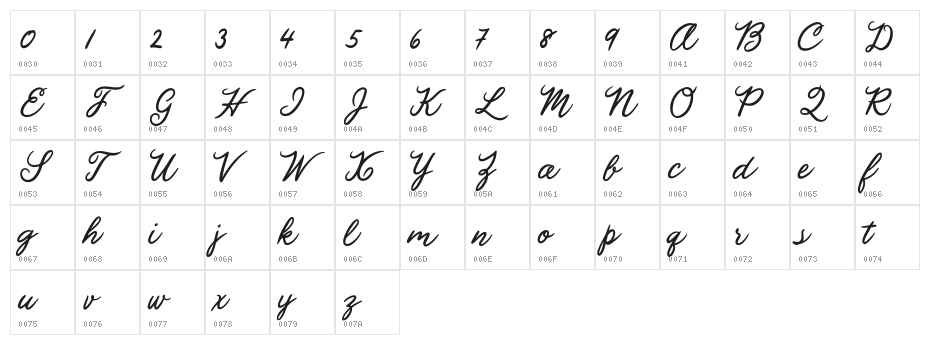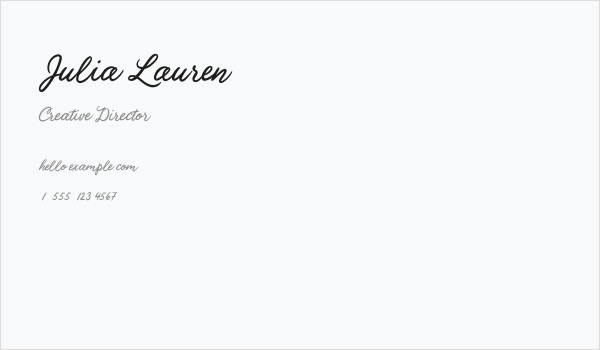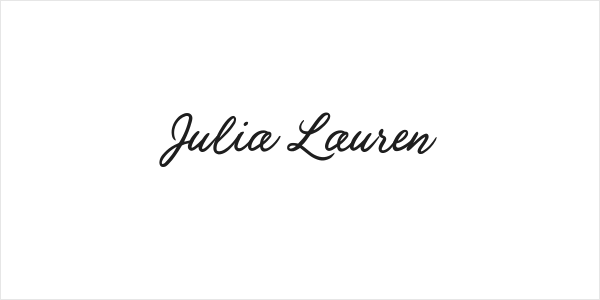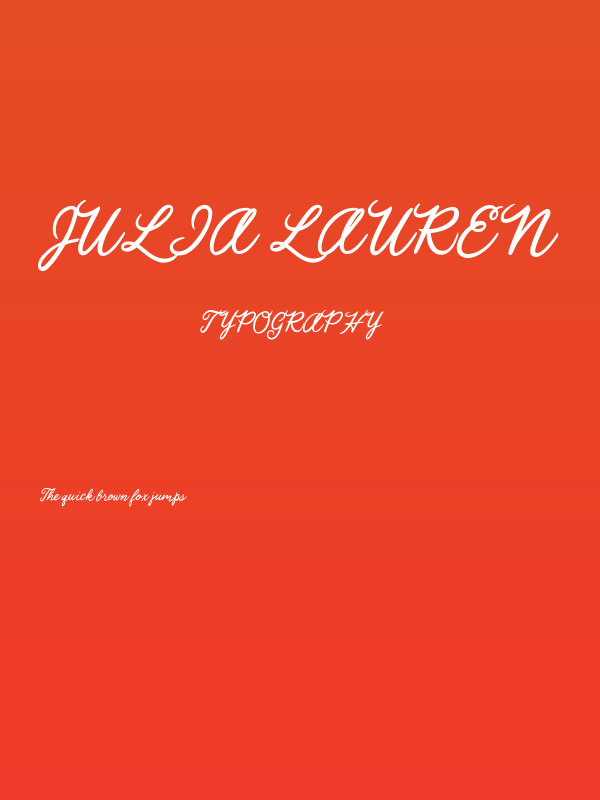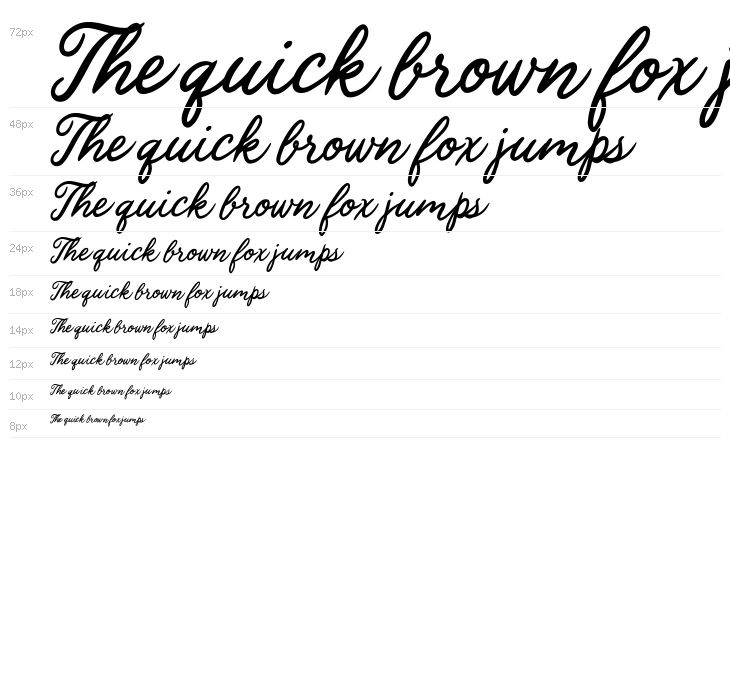
Julia Lauren Font
Julia Lauren Description
This elegant script font features a flowing, cursive style with smooth, connected letters that exude sophistication and grace. The uppercase letters are slightly more ornate, with flourishes that add a touch of flair, while the lowercase letters maintain a consistent, fluid motion. The numerals are designed to match the overall style, offering a cohesive look across all characters. The font's design is perfect for projects that require a personal, handwritten touch, such as invitations, greeting cards, or branding materials. Its legibility and charm make it suitable for both formal and casual applications.
| Overall Style | Elegant, Handwritten |
| Use Case | Headlines, Invitations, Branding |
| Proposed Projects | Ideal for wedding invitations, greeting cards, branding, and elegant signage. |